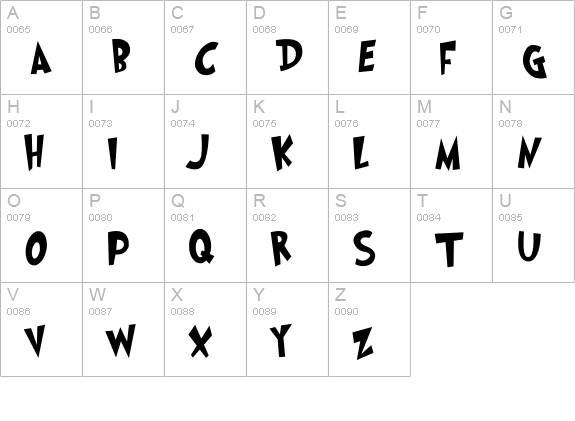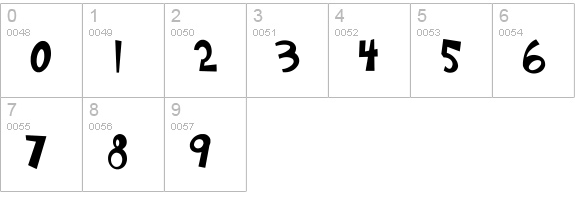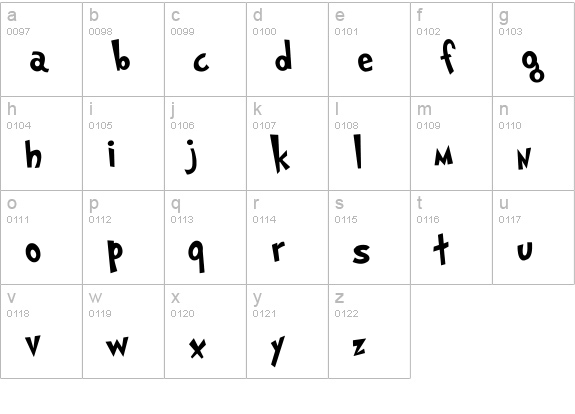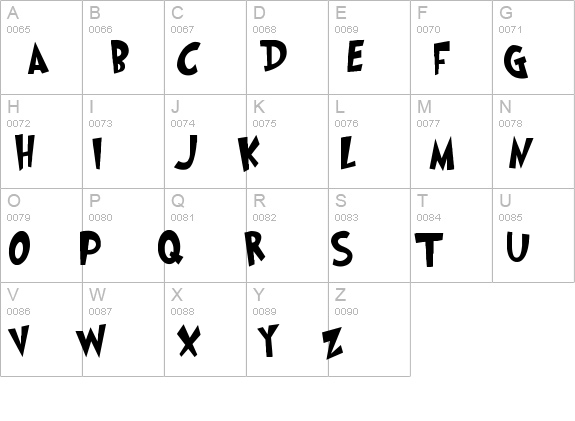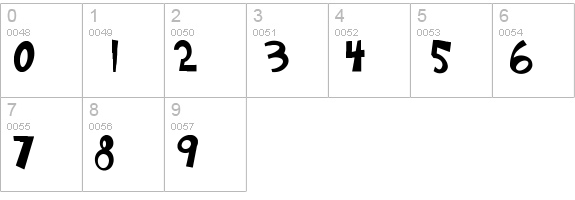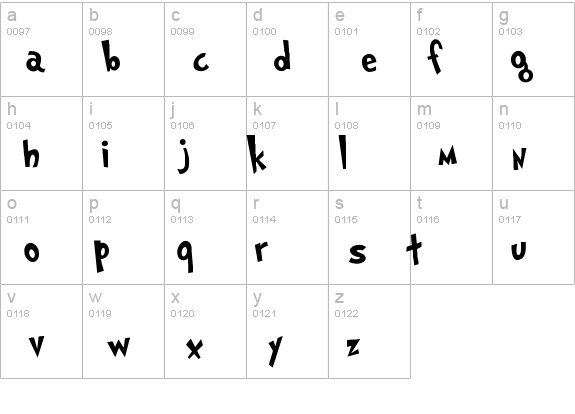
Grinched Font Details
Introducing Grinched font, a whimsical and playful typeface that will add a touch of holiday cheer to your designs. With its quirky letterforms and charming style, Grinched is perfect for creating festive greeting cards, party invitations, and more. This font captures the spirit of the season with its unique design and cheerful vibe. Best of all, Grinched is available for free download at FontsMarket.com, making it a must-have addition to your font collection. Spread joy and merriment with Grinched font today!